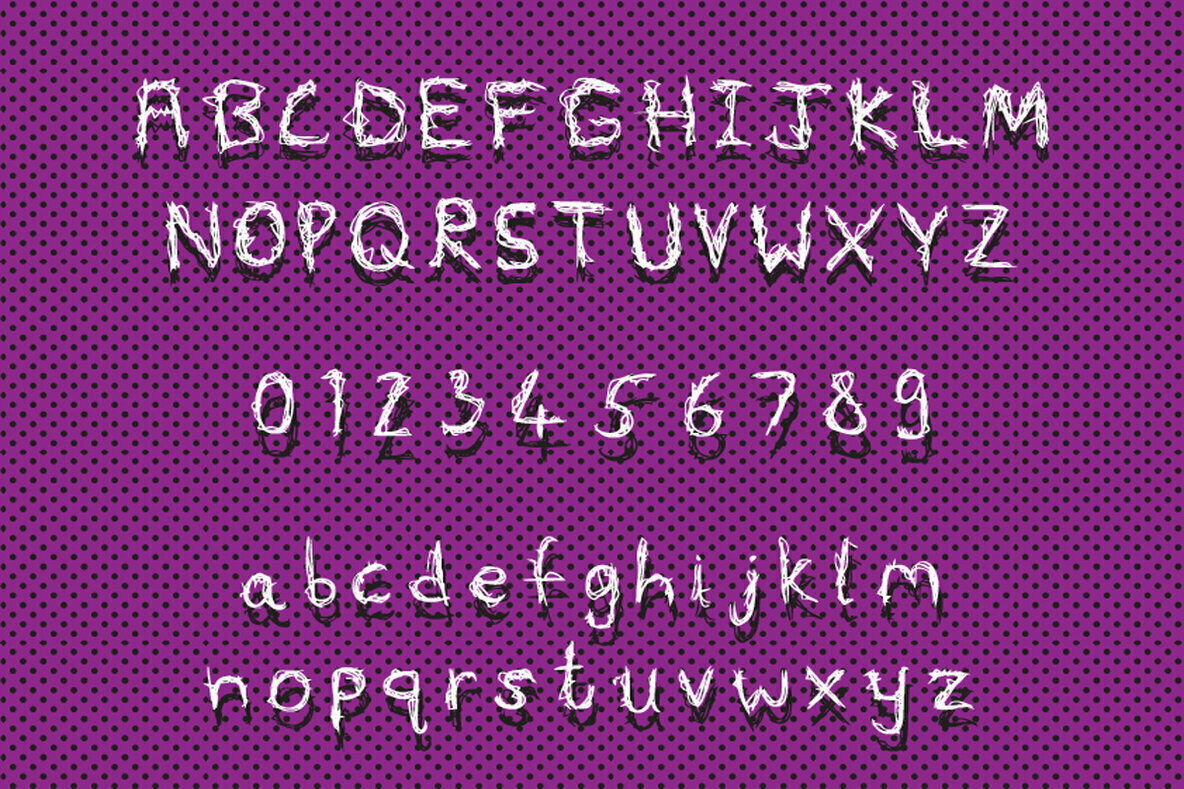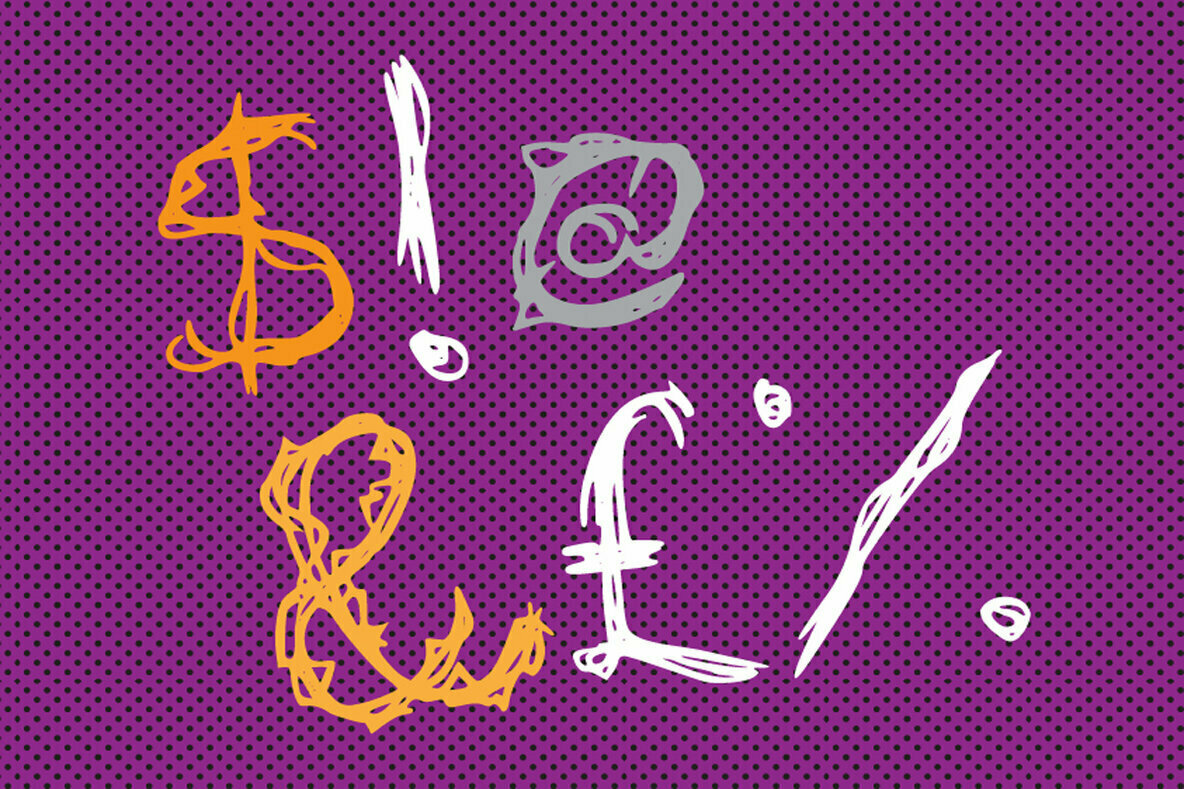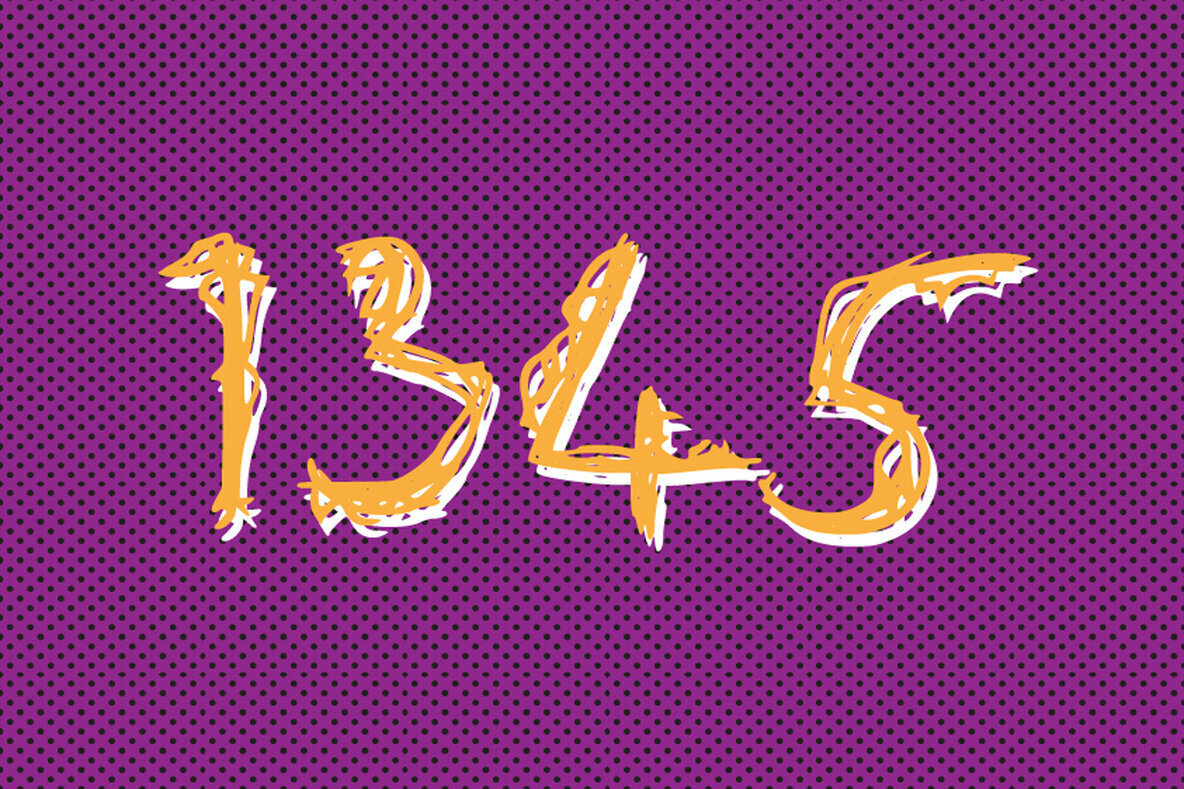
Wizards Scribble Font
Wizards Scribble
Wizards Scribble is a magical script with an authentic feel. Use it to give any design a distinctive, playful feel!